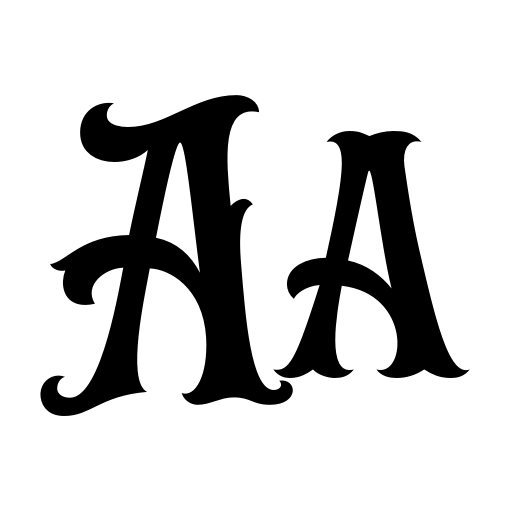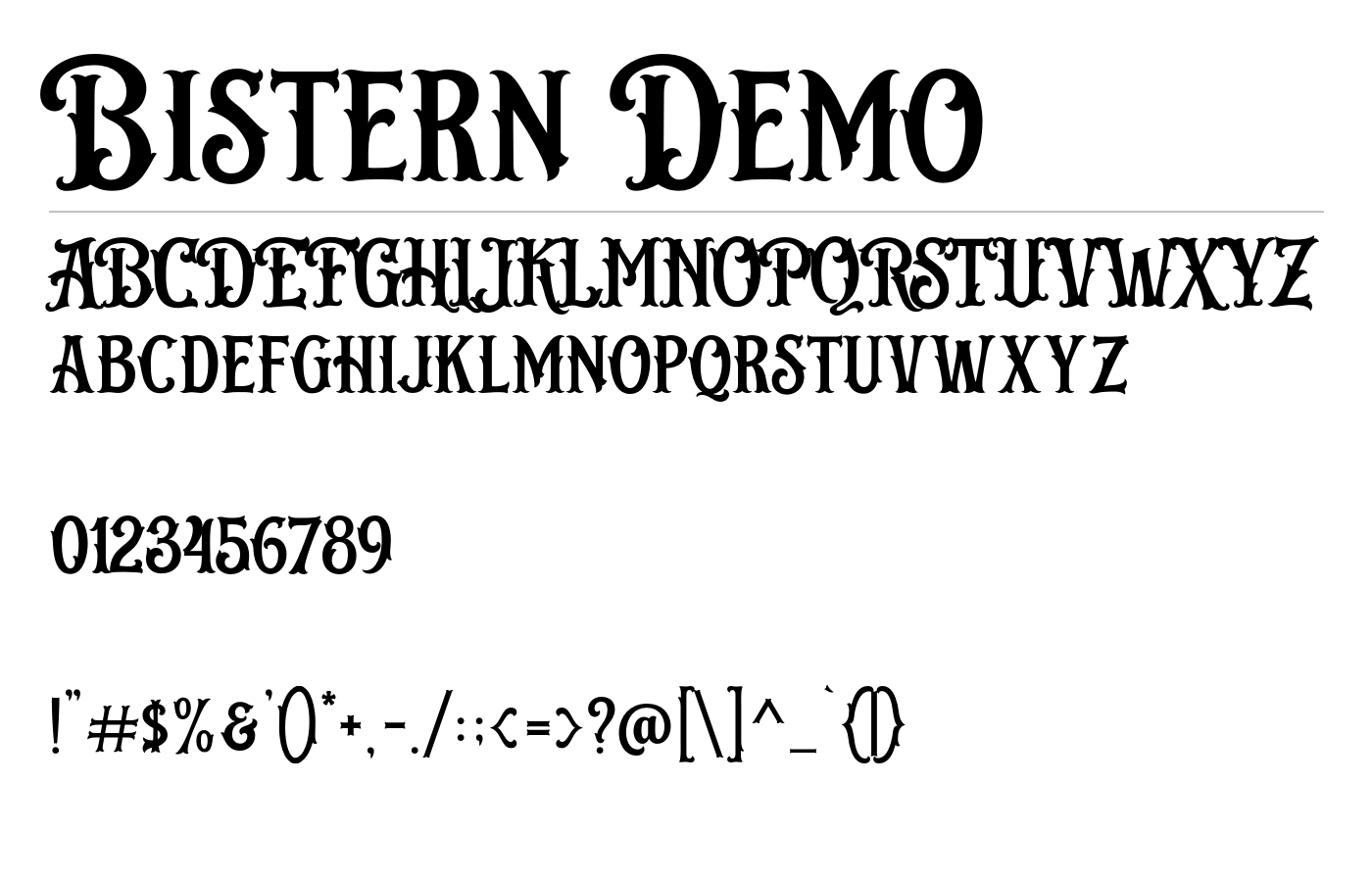
Bistern Demo is a bold serif display font with a strong vintage and ornamental flair, characterized by its thick, bracketed serifs and high contrast between strokes. Its decorative letterforms and unique curls make it ideal for eye-catching headlines, posters, and branding that seek to evoke a classic, playful, or theatrical atmosphere. This font works best in contexts where a distinctive, memorable style is needed rather than for body text, adding personality and charm to fashion, entertainment, or retro-themed designs.
Bistern Demo Font